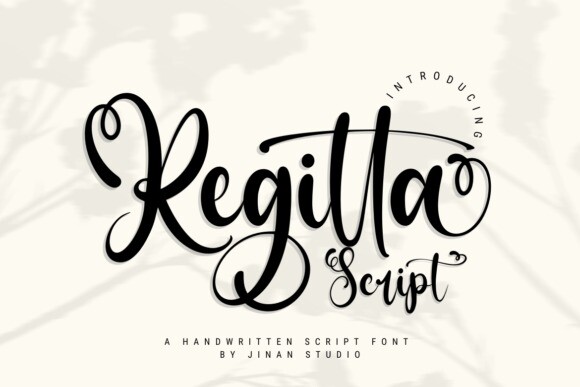
Regitta Script Font
Regitta Script Font is a stunning and sophisticated font that radiates beauty and grace. With its graceful flourishes and sweeping curves, this font is perfect for wedding invitations, branding materials, and other projects where a lovely and stylish script is desired to create a timeless and elegant look.